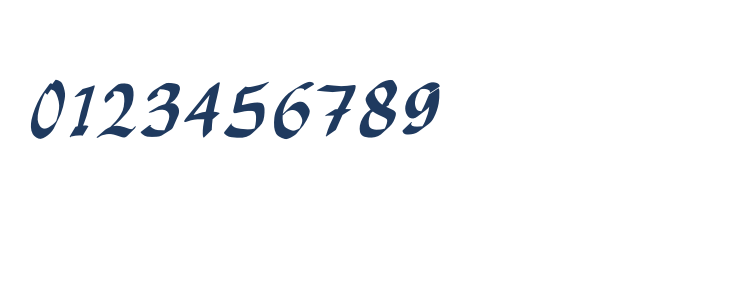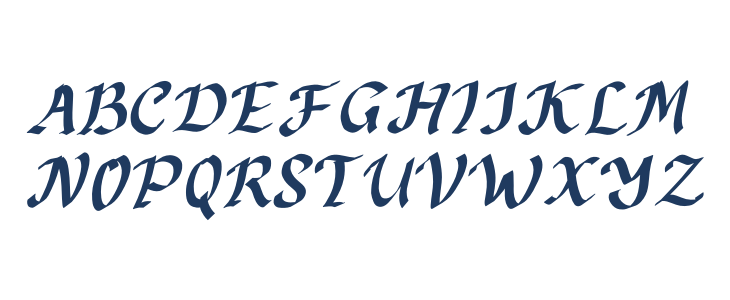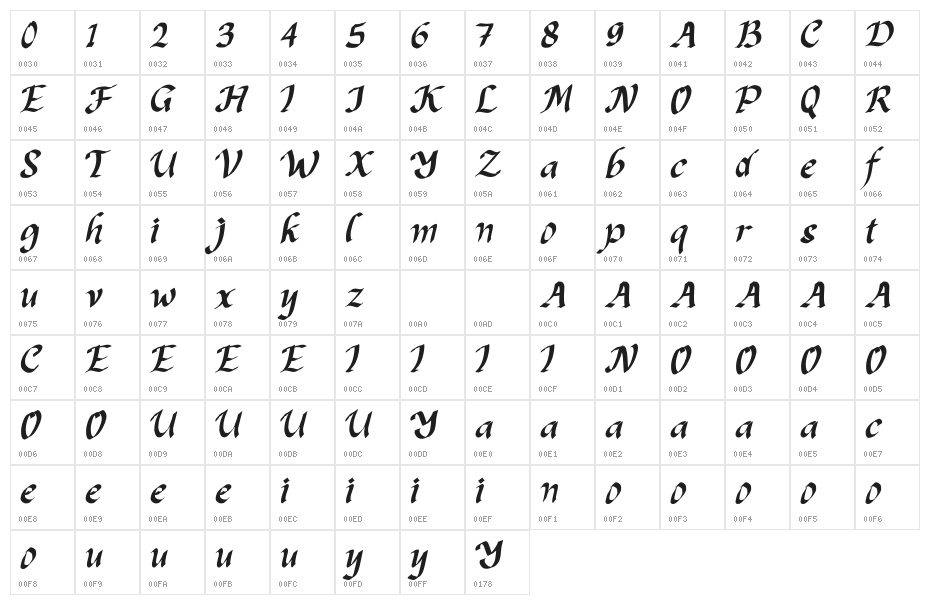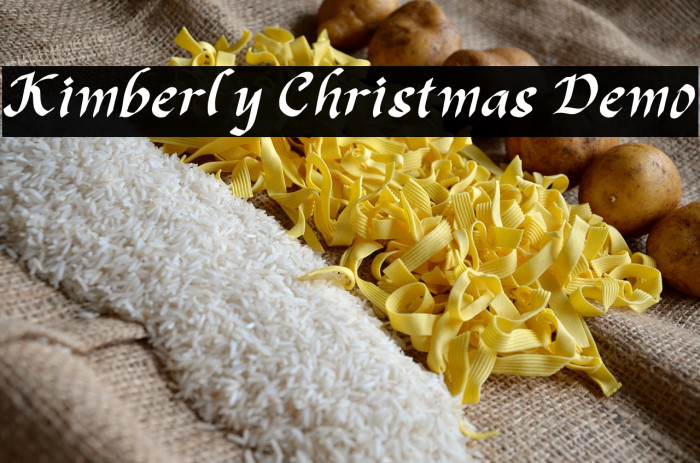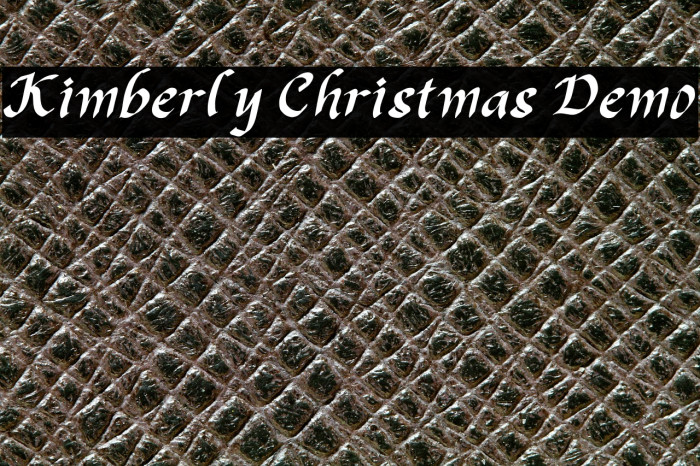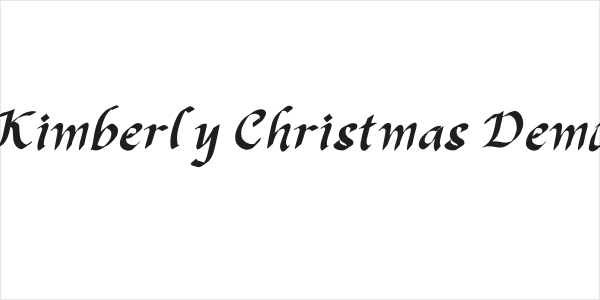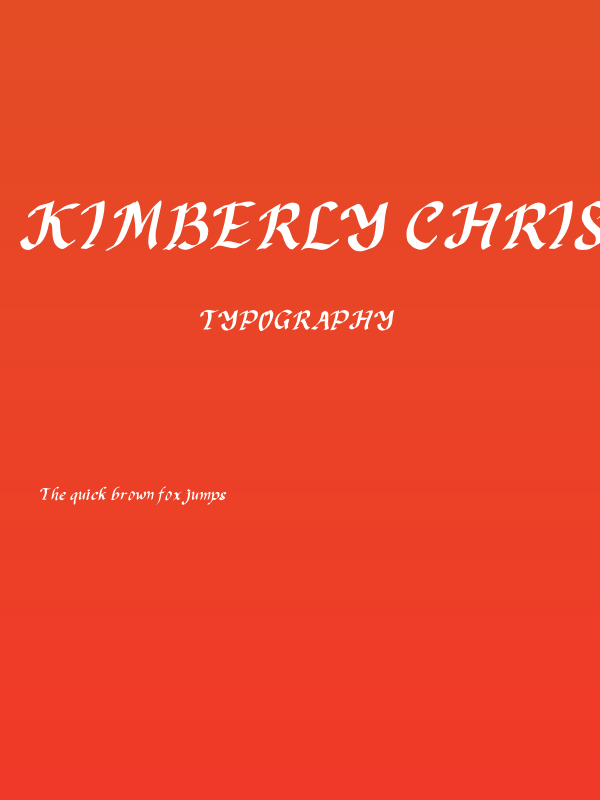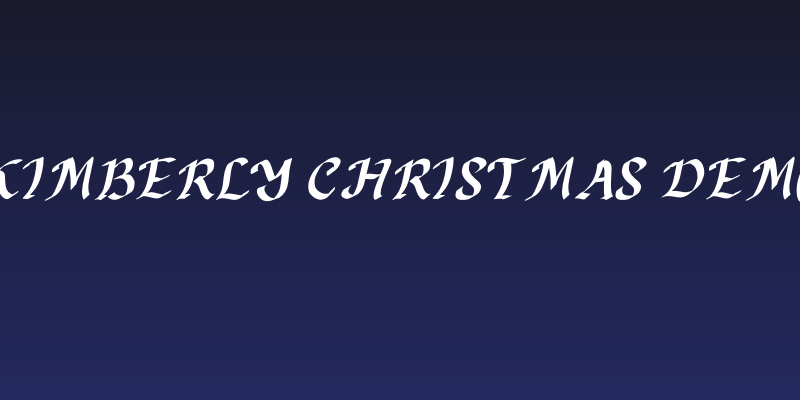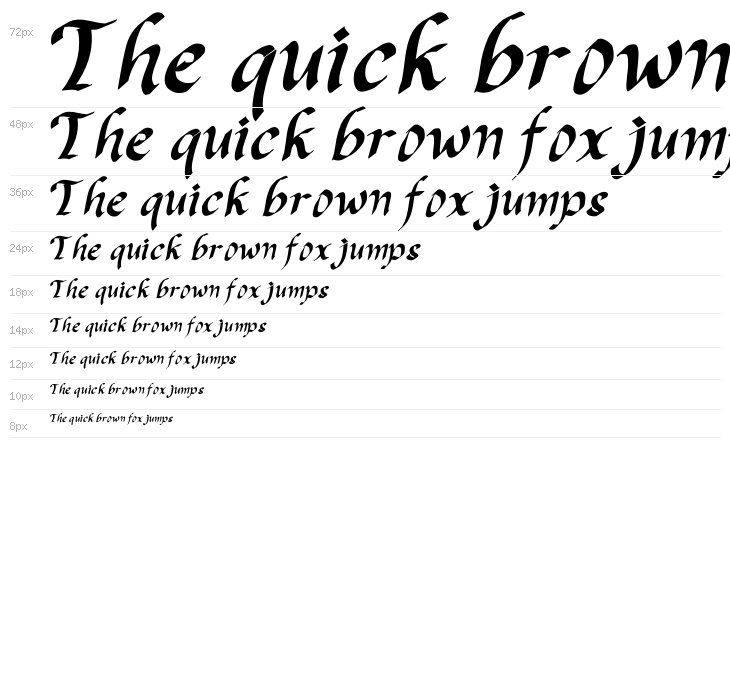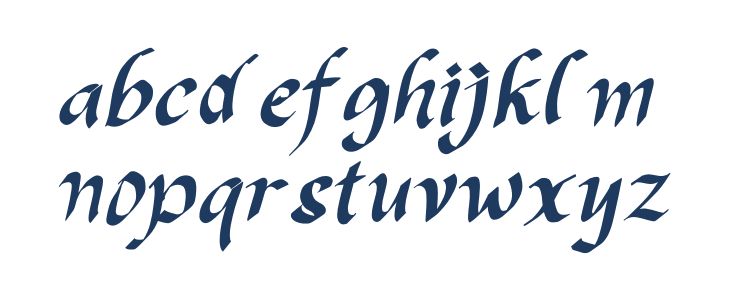
Kimberly Christmas Demo Font
Kimberly Christmas Demo Description
A decorative script font with calligraphic, brush-like strokes and a festive, slightly vintage appearance. The characters feature dramatic curves, sharp terminals, and varying stroke thickness, evoking a handwritten, ornamental style.
| Overall Style | Decorative, Festive, Vintage |
| Use Case | Headlines, Invitations, Greeting cards, Decorative text |
| Proposed Projects | Holiday cards, invitations, festive branding, event posters, decorative headlines. |